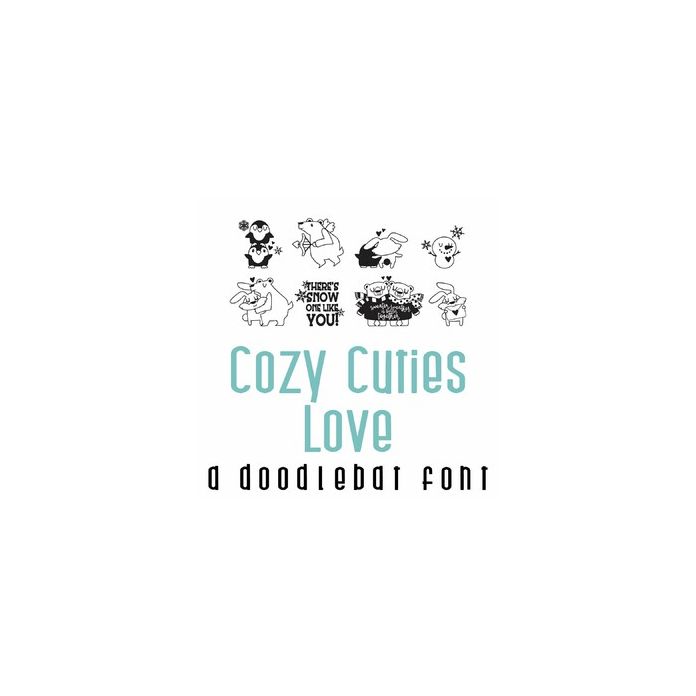
This adorable full-color doodlebat font features 26 cute winter animals ready for love! Perfect for cards, crafts, gifts, decor, scrapbook pages, planner stickers, and more!